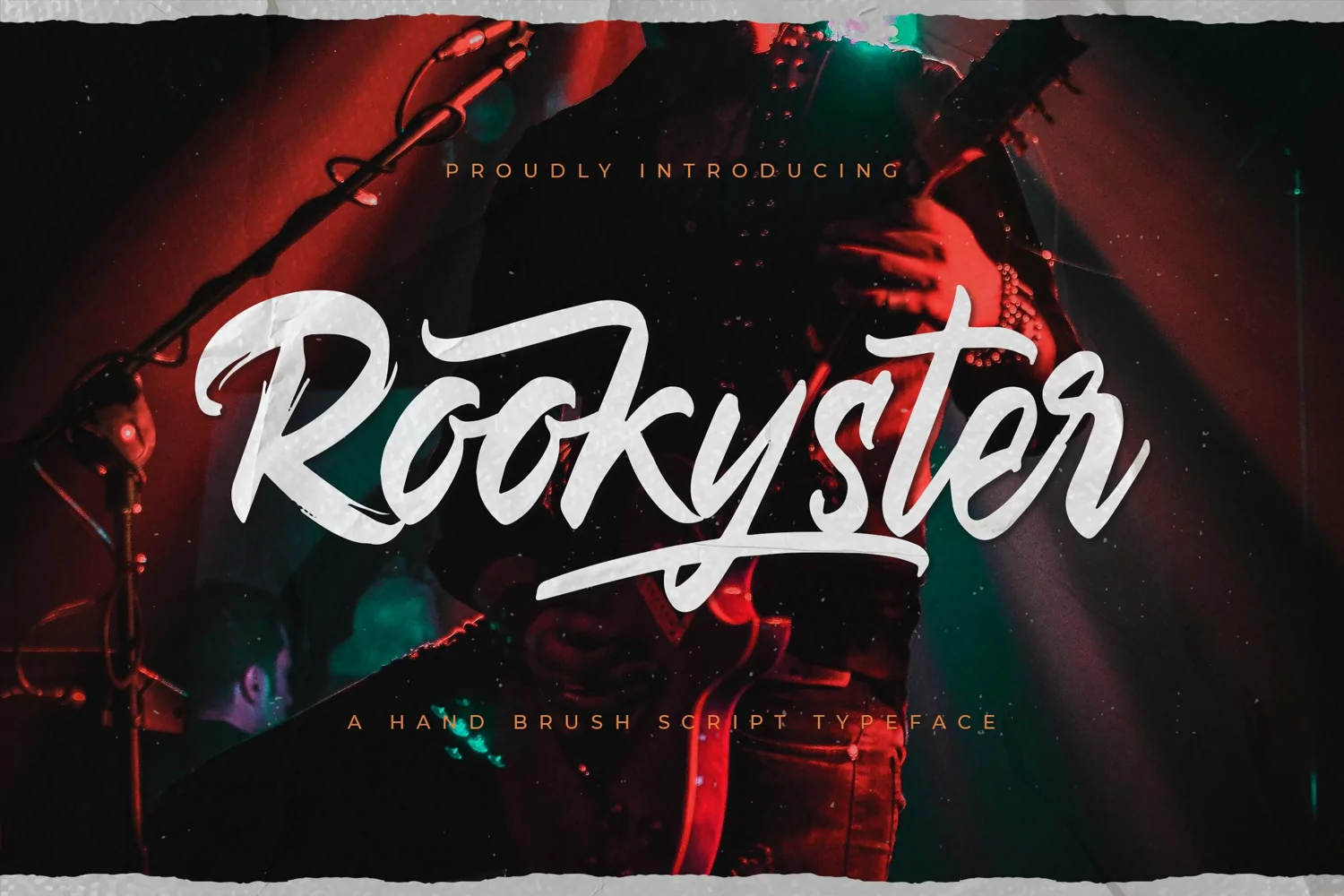
Rookyster - A Hand Brush Script
Rookyster is a handbrush script font.
It has a modern feel and an amazing handwritten, yet striking touch.
It’s perfect for branding materials, quotes, book cover, logos, posters, and much more!
- Symbols & Punctuation
- Numeral
- Ligature
- Alternate